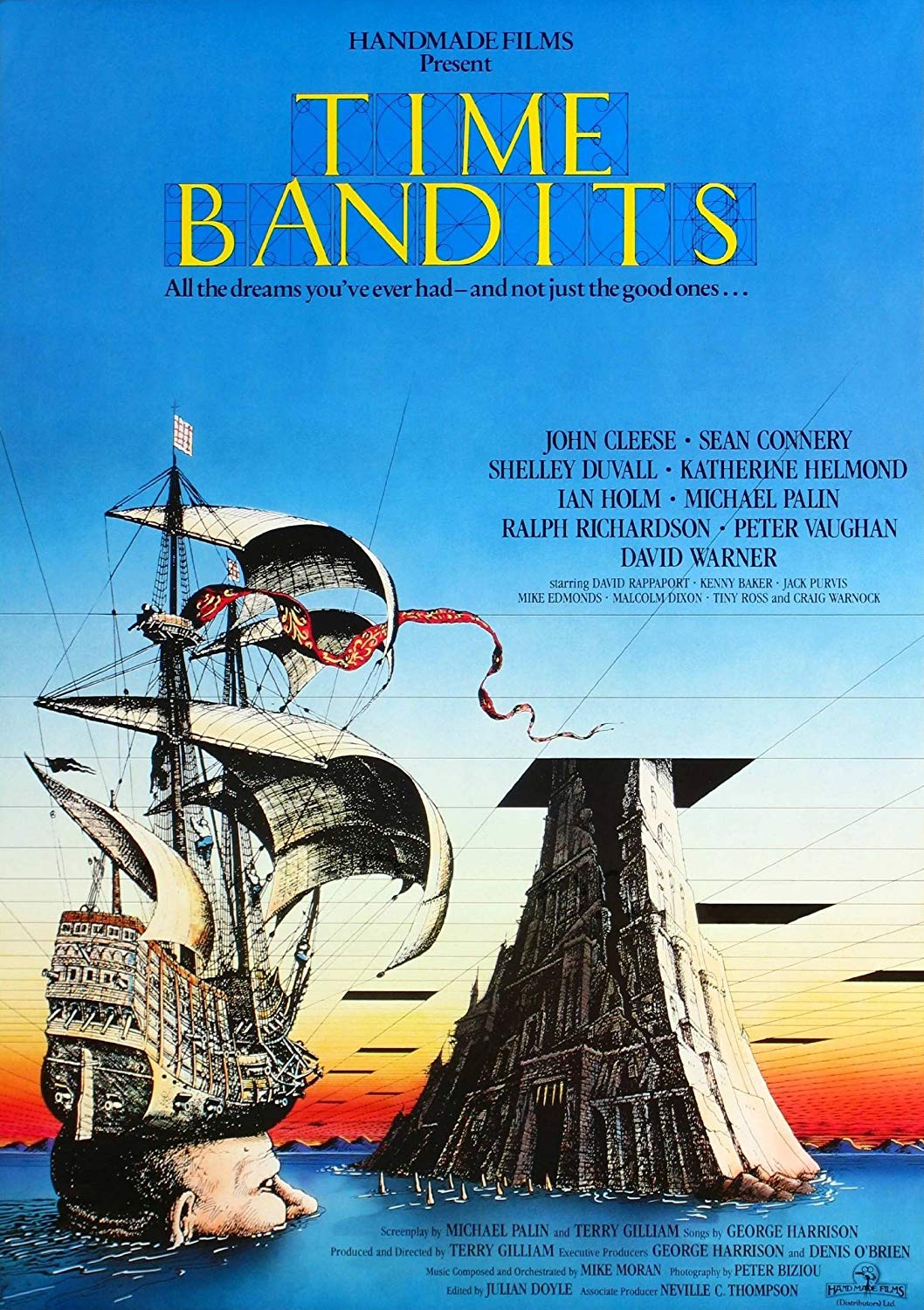
Time Bandits Font
FantasyTime Bandits is a 1981 British-American fantasy film directed by Terry Gilliam. It follows a young boy who goes on a journey through time and space with a group of dwarves as they try to steal riches from historical events.
The film title font on the poster bears a close resemblance to Pacioli a font designed by Matt Desmond. The typography was based on Luca Pacioli's book, which provides instructions on constructing the Roman alphabet using geometric elements such as lines, squares, and circles. The uppercase letters have geometric grids while the lowercase are plain letters.